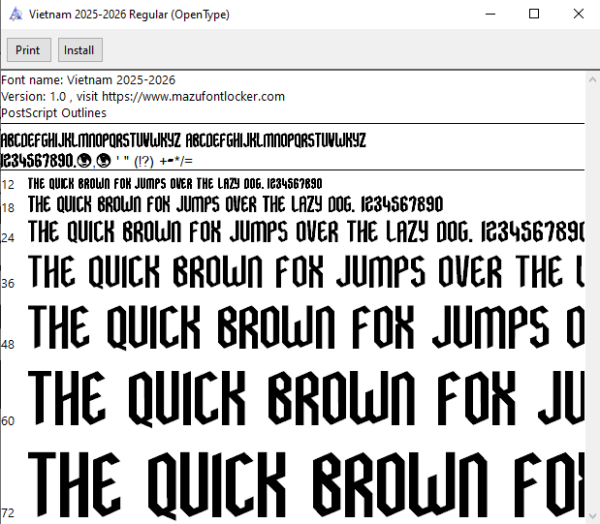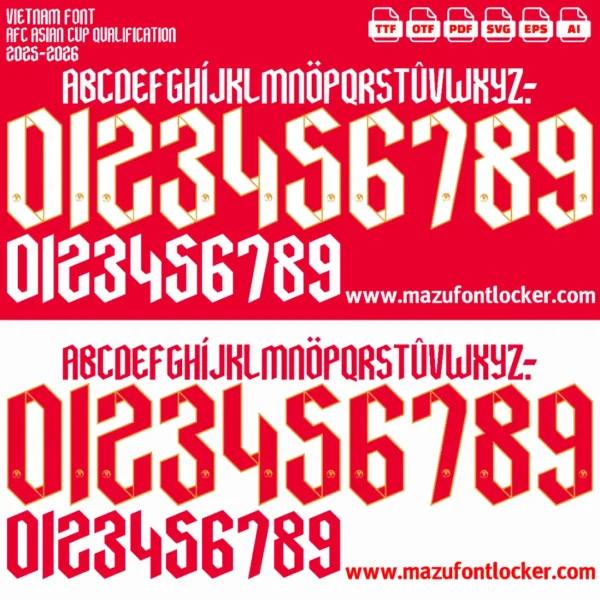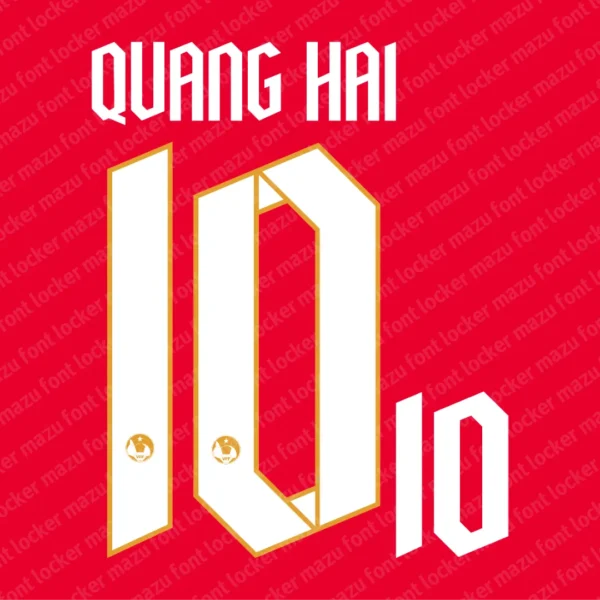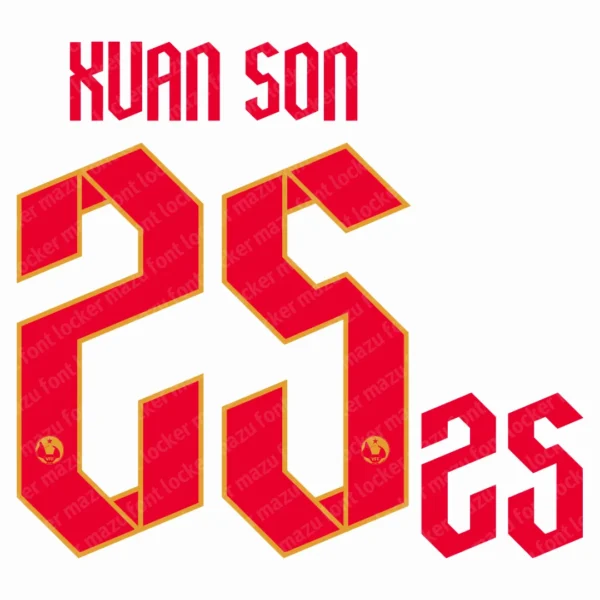
Vietnam 2025-2026 Font Vector – Stunning Golden Star Warriors Masterpiece
This font captures the commanding, iconic, resilient, and ultra-premium lettering that perfectly embodies Vietnam’s passionate football culture, national pride, and fighting spirit, delivering unmatched authenticity, explosive energy, modern style, and championship-level quality for premium jersey mockups, football designs, dynamic sports visuals, passionate fan creations, and professional branding projects.
Vietnam 2025-2026 Font Vector – Stunning Golden Star Heritage Typeface
The Vietnam 2025-2026 Font Vector is a premium typeface that accurately recreates the official match lettering worn by the Vietnam National Football Team during the 2025-2026 season. This high-quality vector font kit captures the modern, dynamic typography inspired by the team’s official nameset, perfectly complementing Vietnam’s iconic red-and-gold identity and the spirit of the Golden Star Warriors. The official 2025 nameset was introduced alongside Vietnam’s Jogarbola home and away kits, inspired by the nation’s flag and geometric star elements.
This font stands out thanks to its precise vector construction and authentic national team styling. Every character has been carefully recreated to match the official shirt lettering used throughout the 2025-2026 season. Whether you’re producing realistic kit templates or creating eye-catching football content, the Vietnam 2025-2026 Font Vector delivers a genuine professional appearance.
The lettering featured in the Vietnam 2025-2026 Font Vector combines bold polygon-inspired geometry with sharp contemporary proportions. Inspired by the five-pointed golden star of Vietnam’s national flag, the design reflects unity, determination, and national pride.
The numerals feature balanced angles, crisp edges, and excellent spacing for maximum readability. Built entirely as scalable vectors, every number remains sharp for jersey customization, digital graphics, posters, and large-format printing.
• Complete uppercase A–Z alphabet and numbers 0–9 in authentic Vietnam 2025-2026 style
• Special Vietnam crest glyph – Press the “:” (Colon) key to insert the club logo
• Includes authentic federation crest glyph placement beneath player numbers